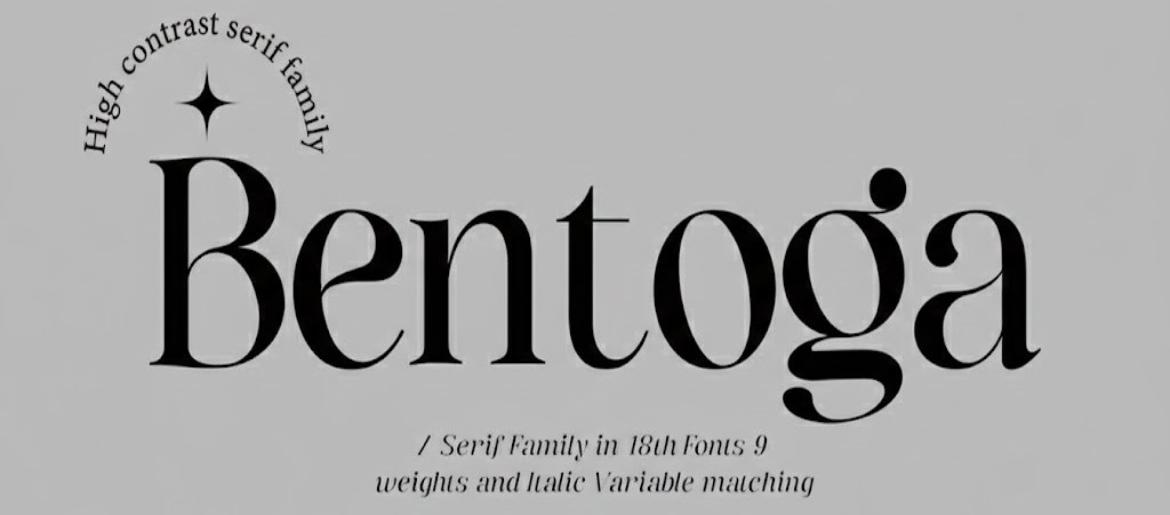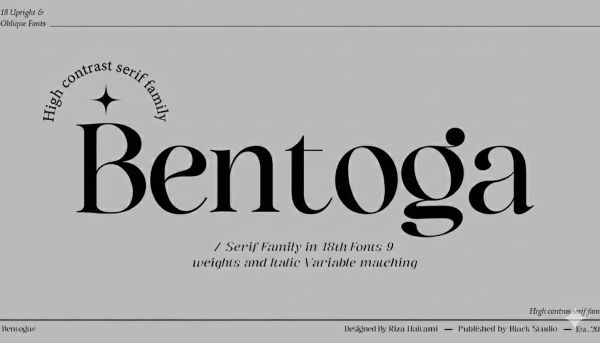
Bentoga Font
Bentoga Font is a modern display typeface featuring bold curves and smooth contemporary styling. It delivers a stylish and confident visual presence, making it suitable for logos, branding, posters, packaging, and headline typography. Its distinctive character and balanced readability help designs stand out while fitting seamlessly into creative projects and curated free fonts collections.